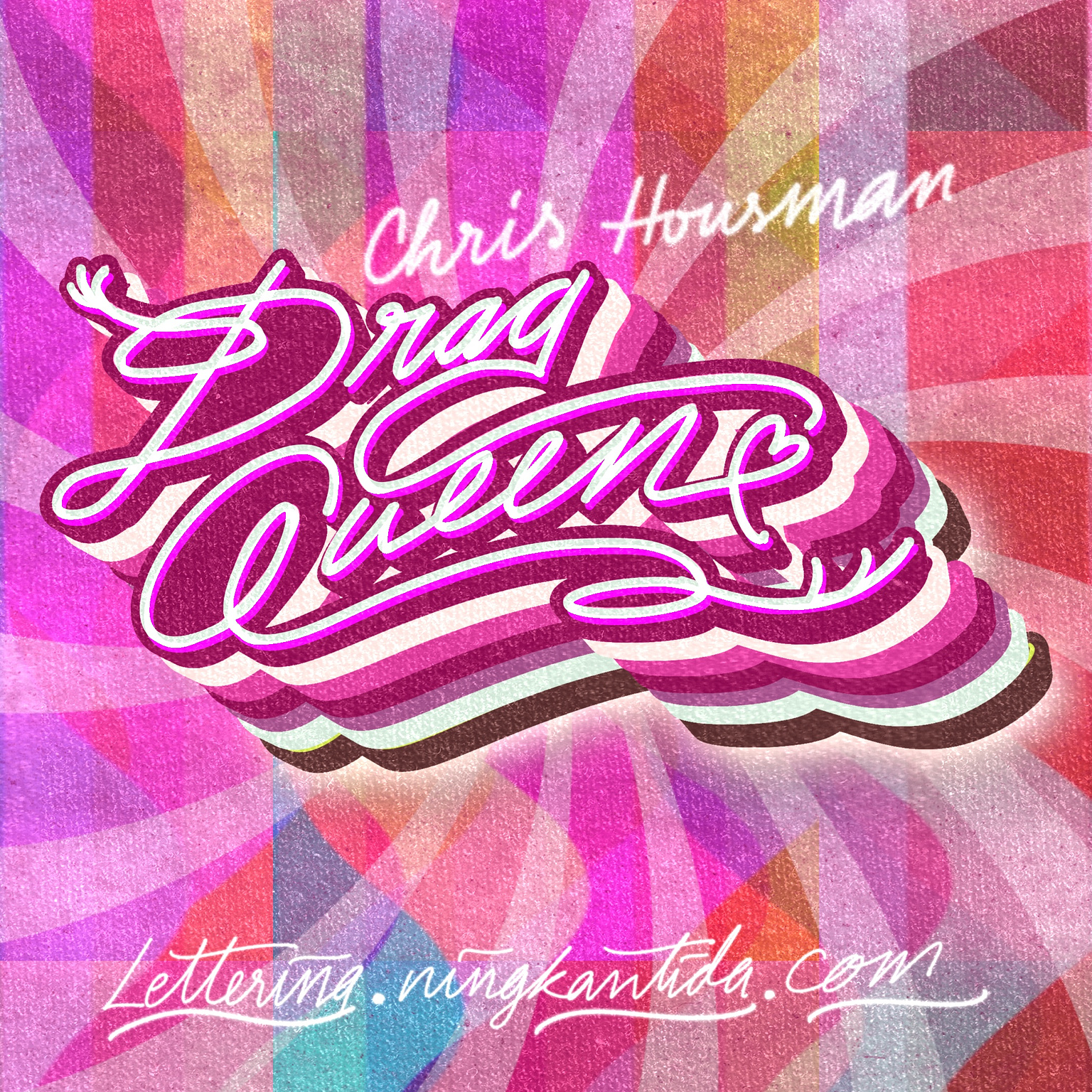
Pride Month Music 09-Drag Queen by Chris Housman
As we approach the end of Pride Month, I’m creating lettering pieces celebrating music related to LGBTQIA+ community. My goal is to expose people to good music and artists while also help bringing the community filled with diversity together, since music is like a universal language that can touch anyone’s heart.
I really love Guilty as Sin and The Bible Belt by Chris Housman—both are incredible songs for LGBTQIA+ community. However, I chose to do the lettering for Drag Queen because there are so few songs that celebrate drag queens, and I wanted to help promote this amazing track!
What I truly admire about Drag Queen is how it tells the story from an outsider’s perspective, highlighting how much self-confidence and self-assured aura a drag queen radiating for them. It’s such an inspiring and uplifting tribute!
For the lettering, I want it to be as vibrant as possible, representing the colorful life, especially the pink, of drag queens. Additionally, I have layered multiple levels beneath the text “Drag Queen” to symbolize the complex, multifaceted lives of these individuals. This creates an eye-catching composition that celebrates the vibrancy, flamboyance, and multifaceted nature of drag culture.